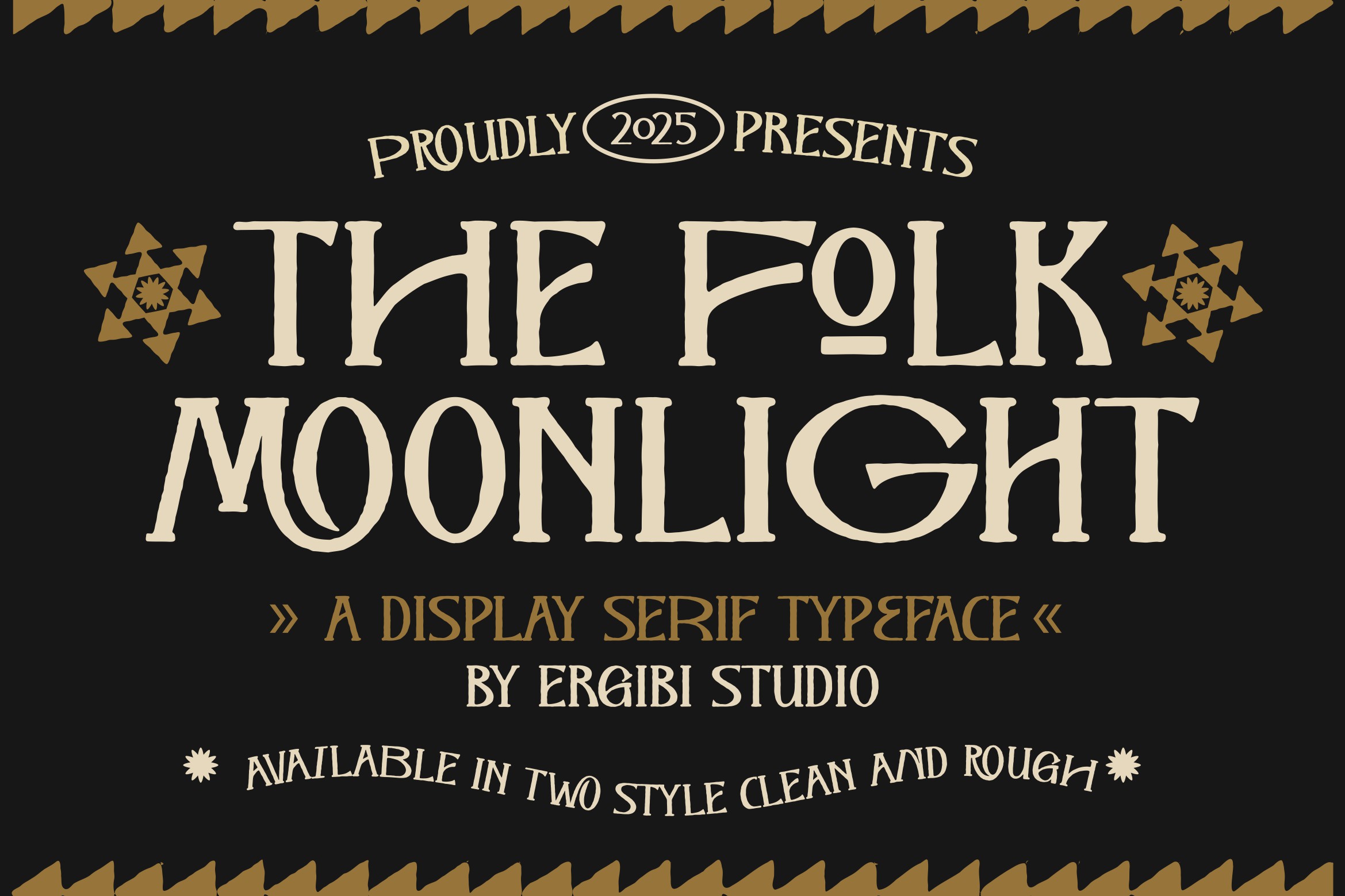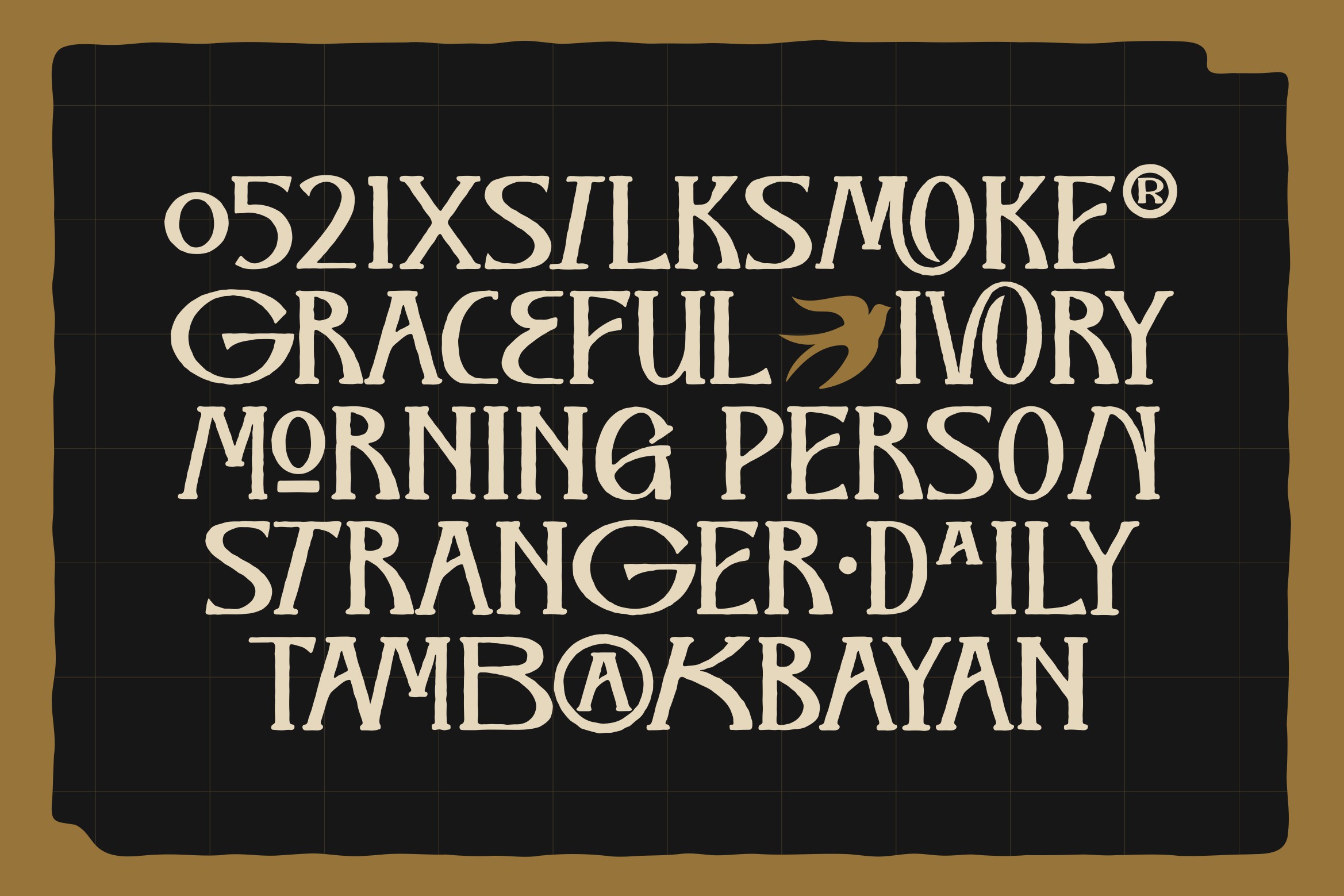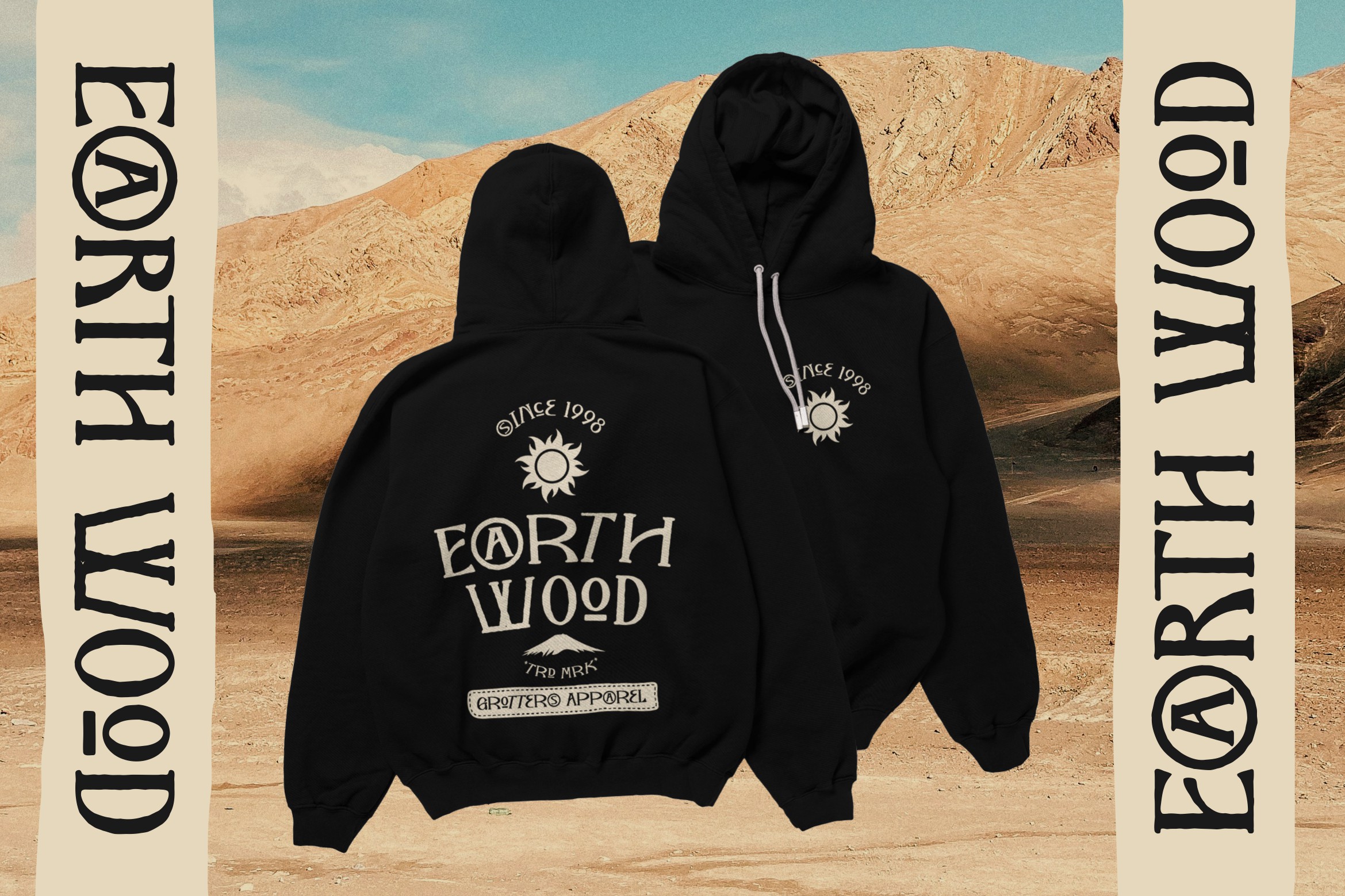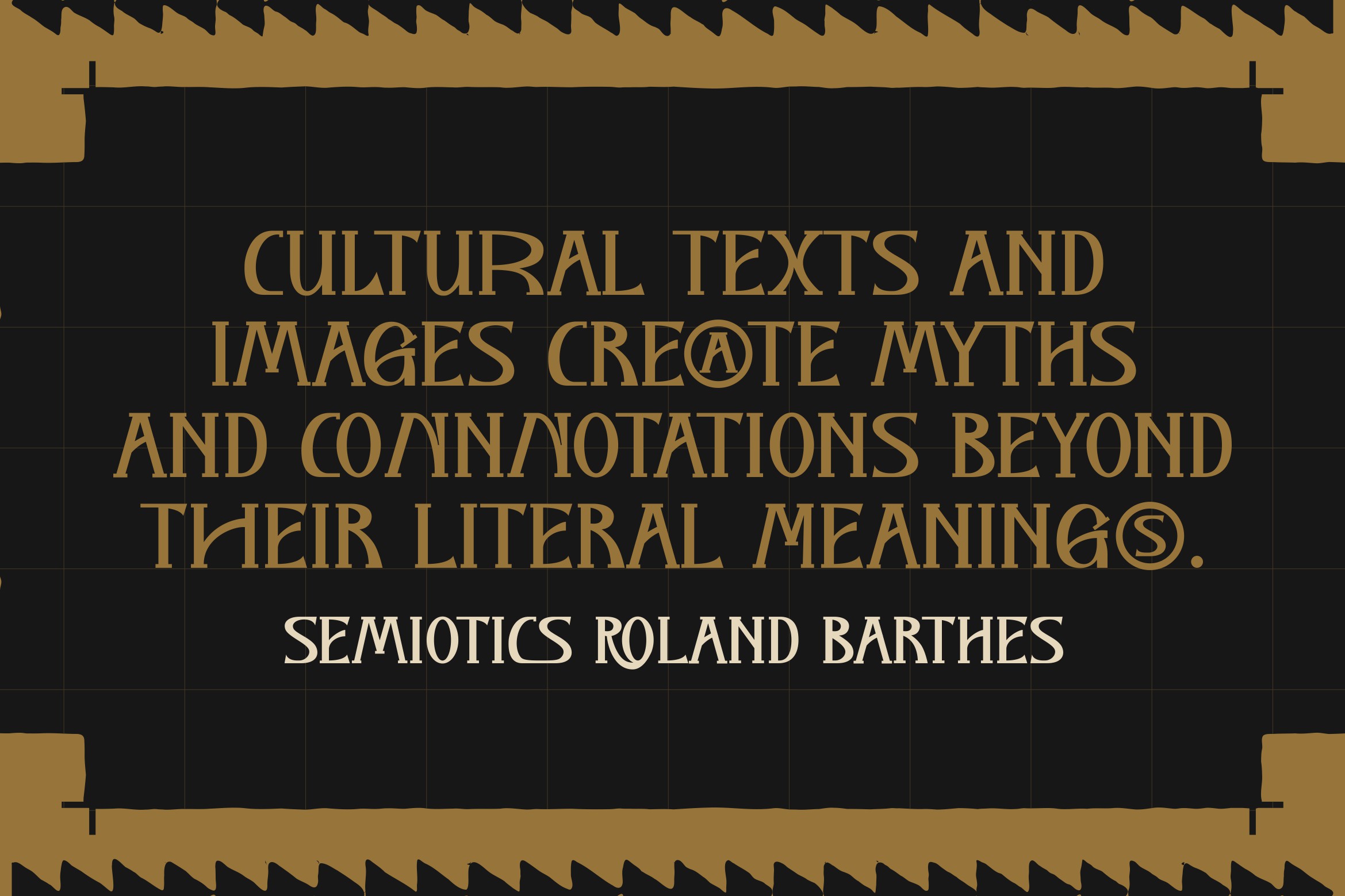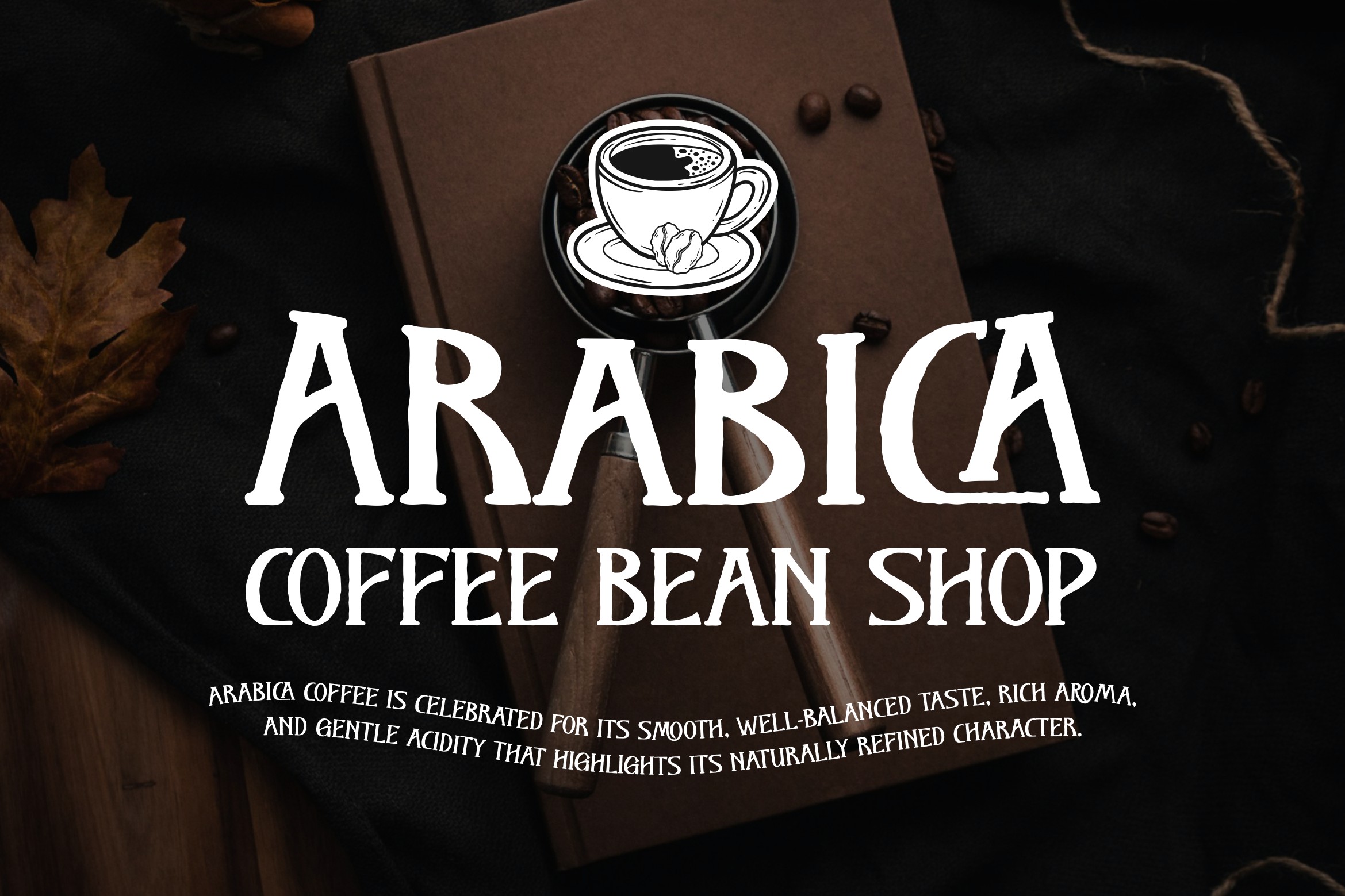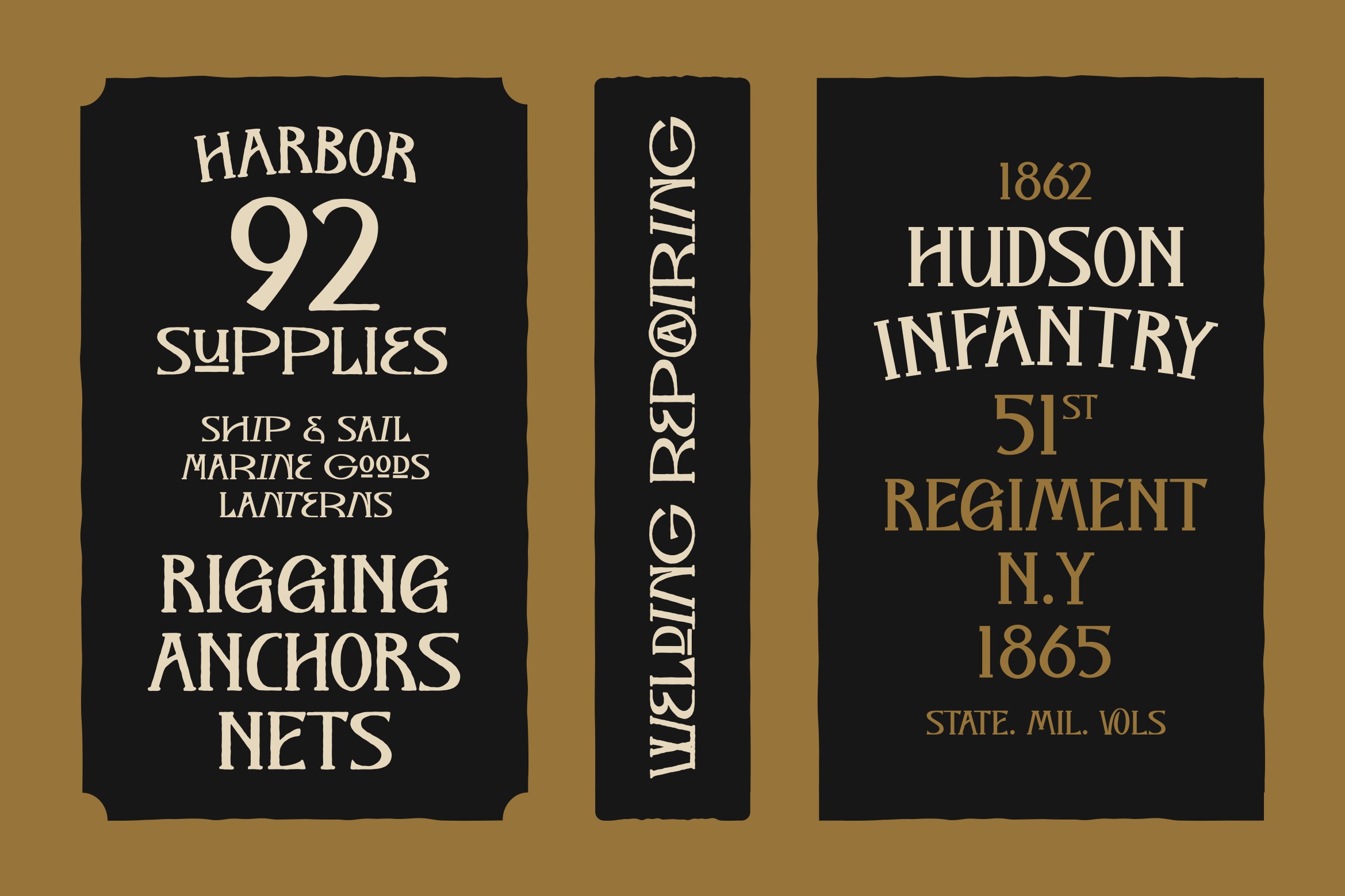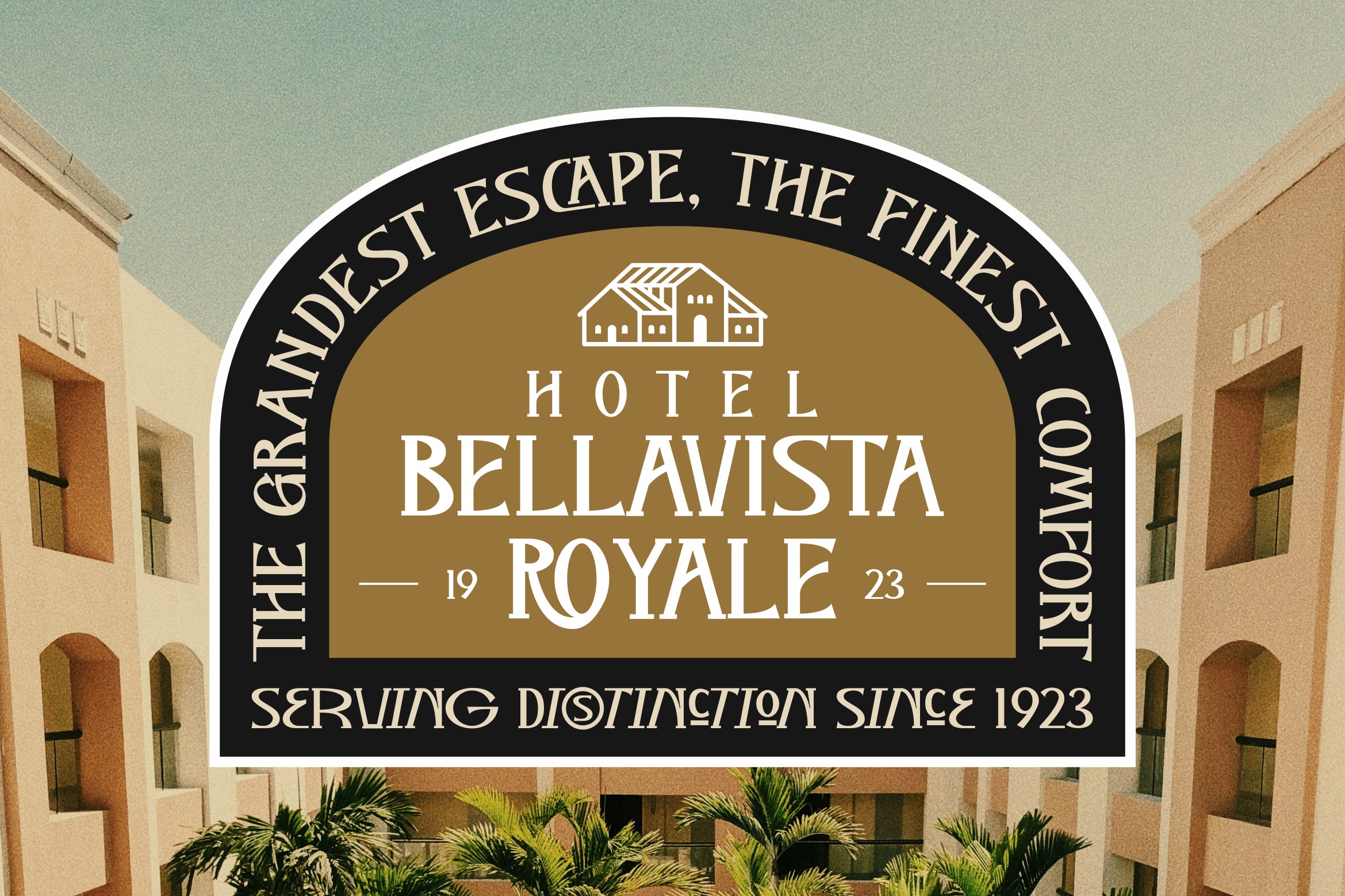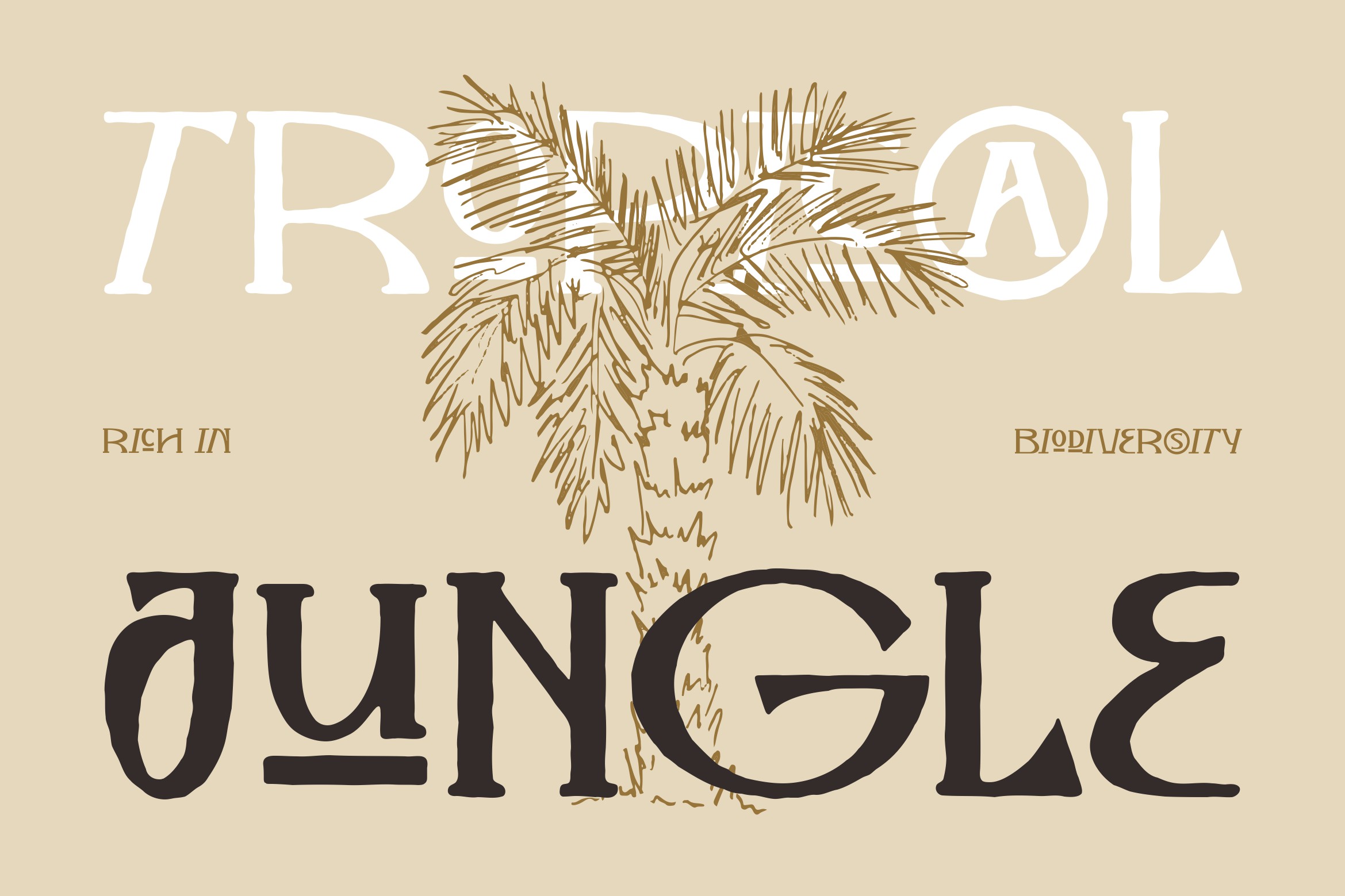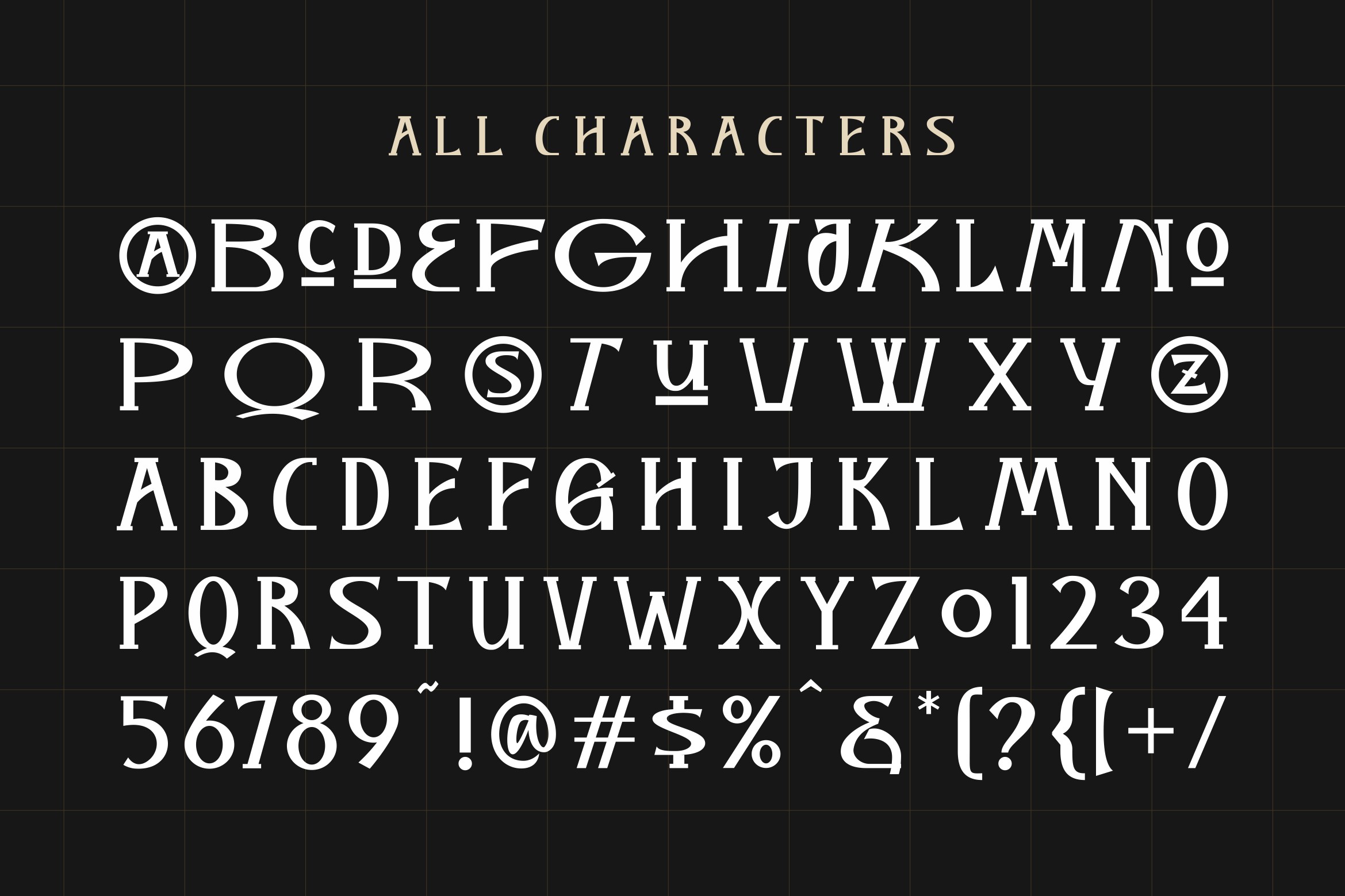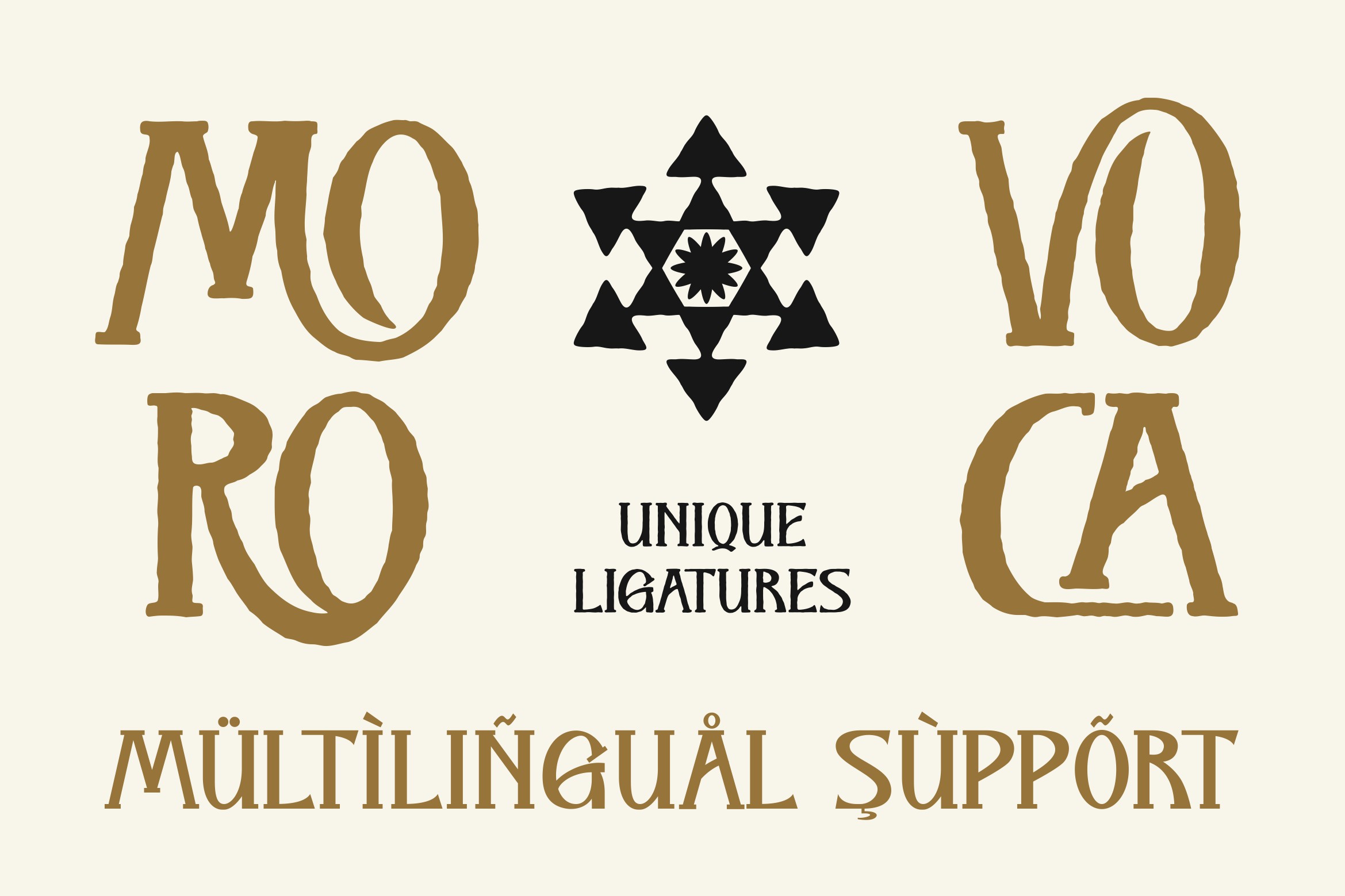
The Folk Moonlight is a display serif featuring strong vintage-inspired shapes, textured details, and handcrafted character. Designed for standout titles and impactful branding, this typeface delivers an authentic rustic aesthetic suitable for packaging, editorial layouts, apparel design, signage, and logo work. Its structured forms and organic edges offer both readability and distinctive personality, making it ideal for projects that need a bold, heritage-driven look.
• Standard glyphs
• Stylistic Alternates
• International Accent